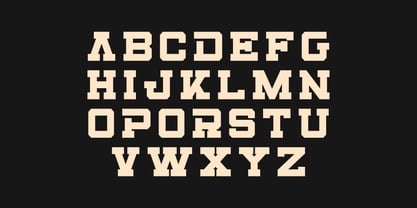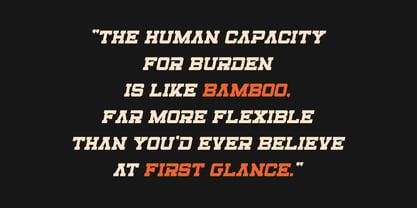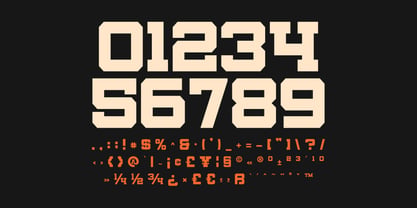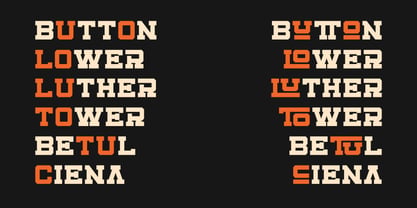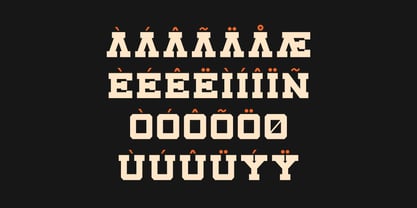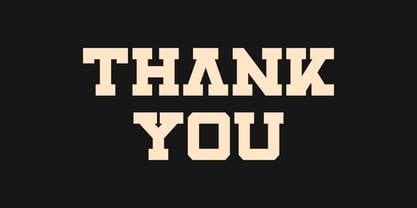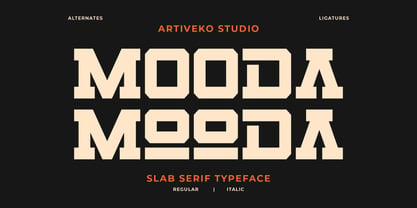
Mooda
by Artiveko
The Mooda Font Family was designed by Iwan Alwan and published by Artiveko. Mooda contains 2 styles and family package options. More about this family
Mooda is a bold slab serif typeface crafted to convey strength, stability, and a striking visual impact. Featuring thick strokes, solid slab serifs, and confident letterforms, Mooda establishes a commanding presence in any design. Ideal for branding, logos, posters, packaging, editorial headlines, and vintage-inspired visuals, Mooda seamlessly merges classic slab serif characteristics with a contemporary bold approach. Its robust structure instills a sense of reliability and authority while ensuring readability across both print and digital platforms. Whether utilized for bold branding, retro-style designs, or impactful campaigns, Mooda distinguishes itself with its strong personality and timeless appeal. Mooda is more than just a font — it’s engineered for strength, impact, and bold expression.
Designers: Iwan Alwan
Foundry: Artiveko